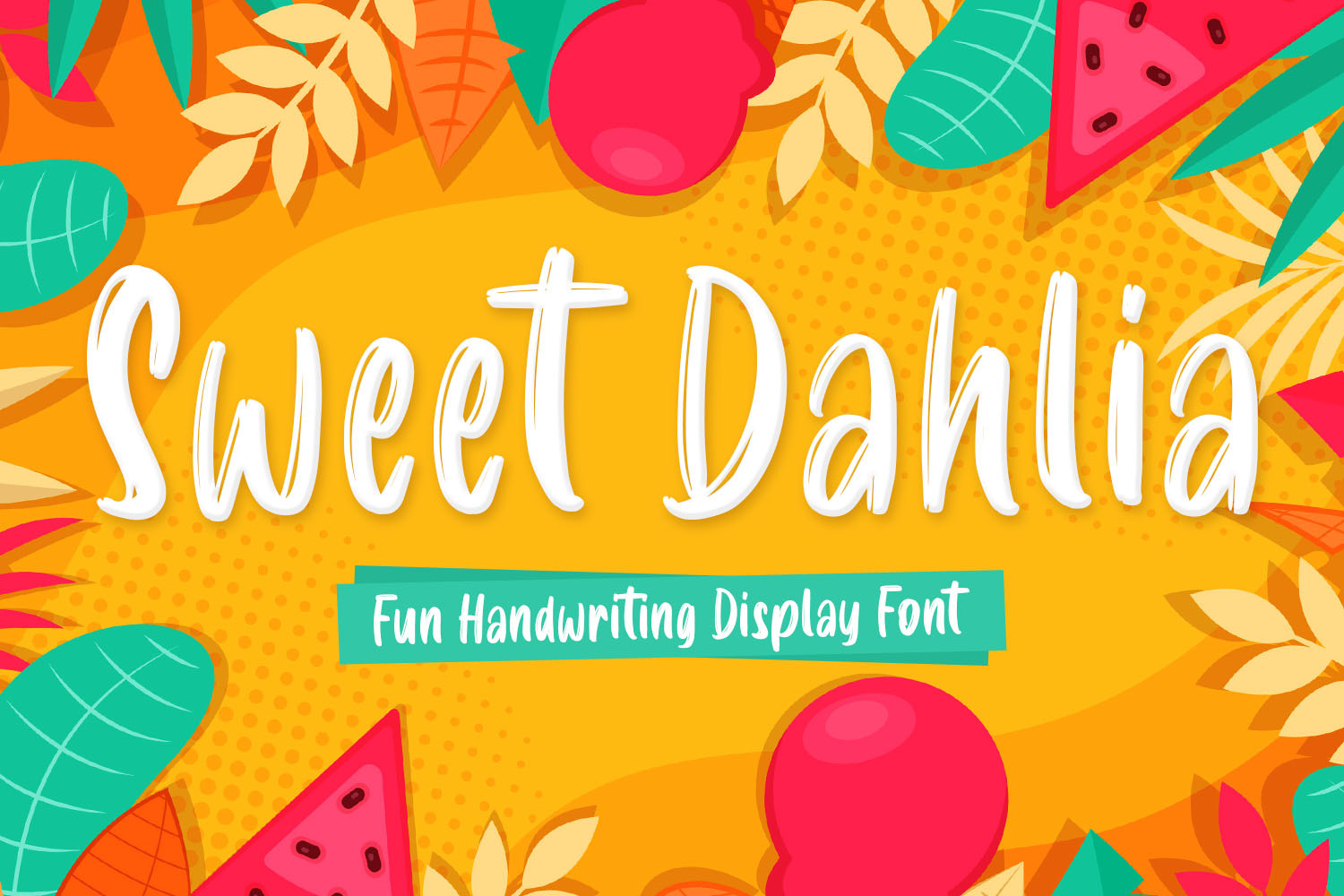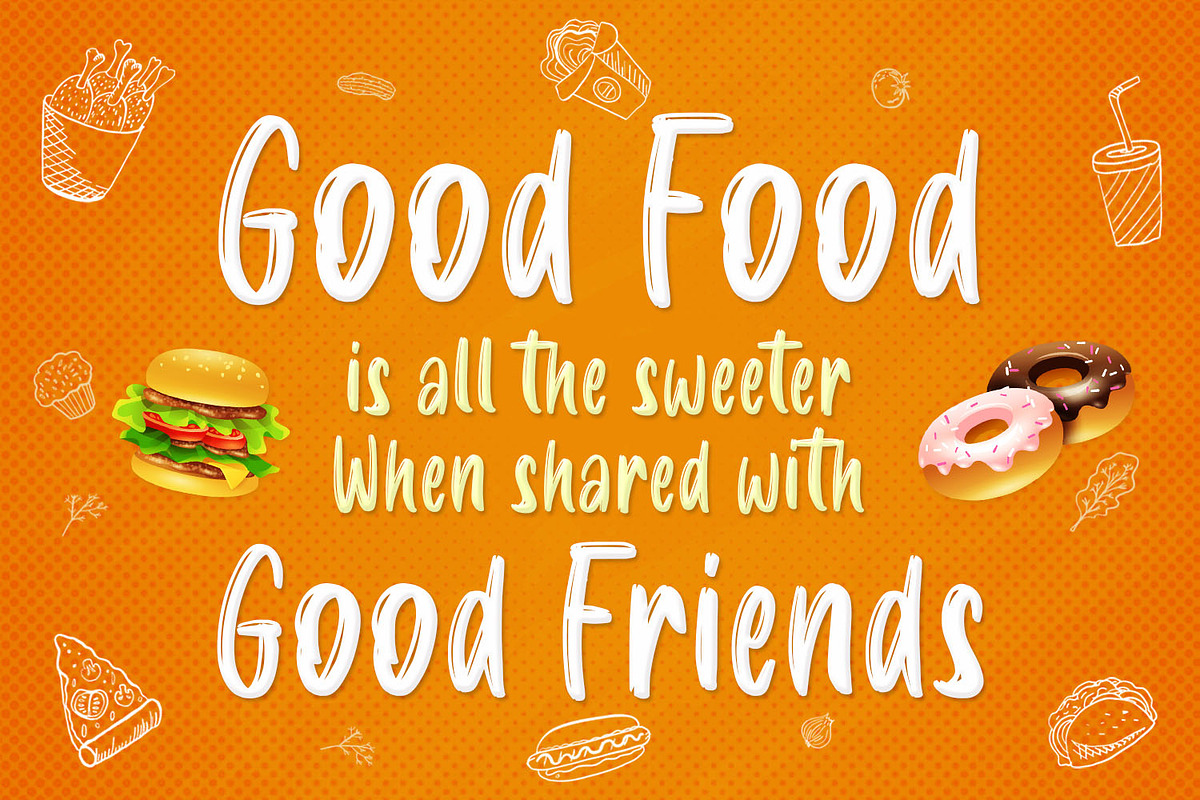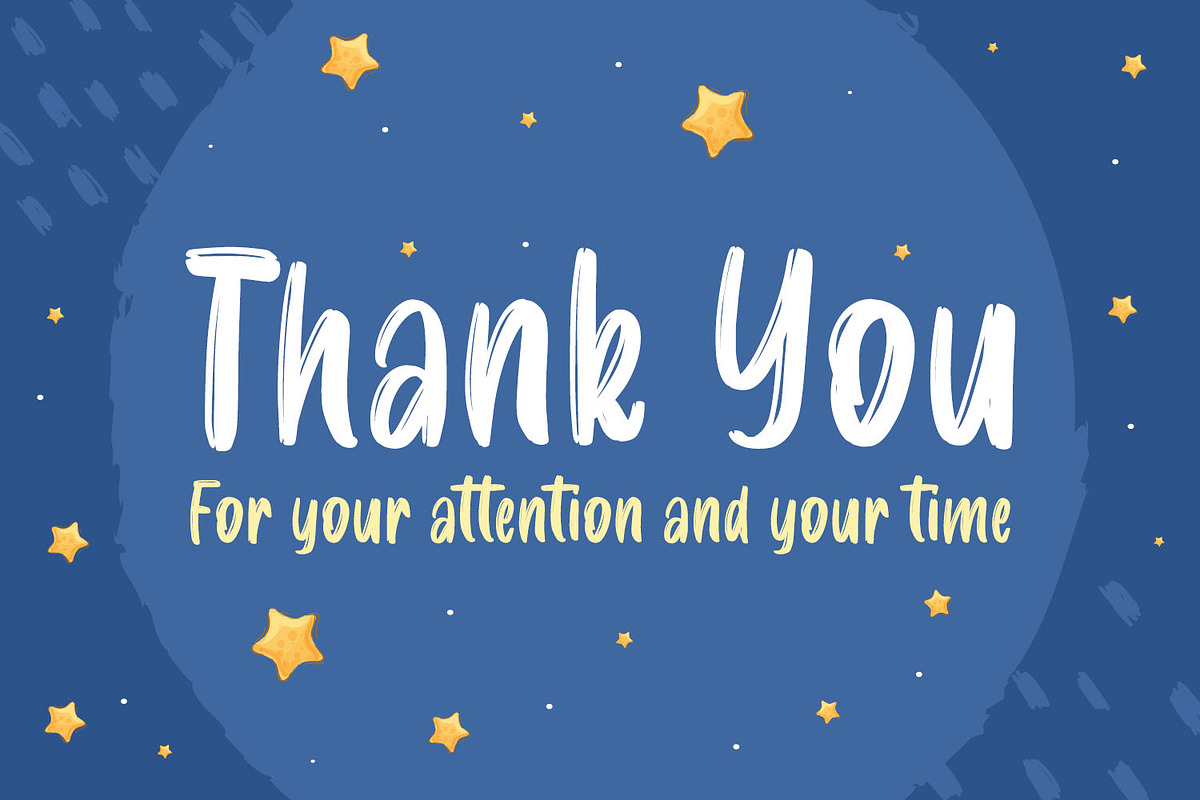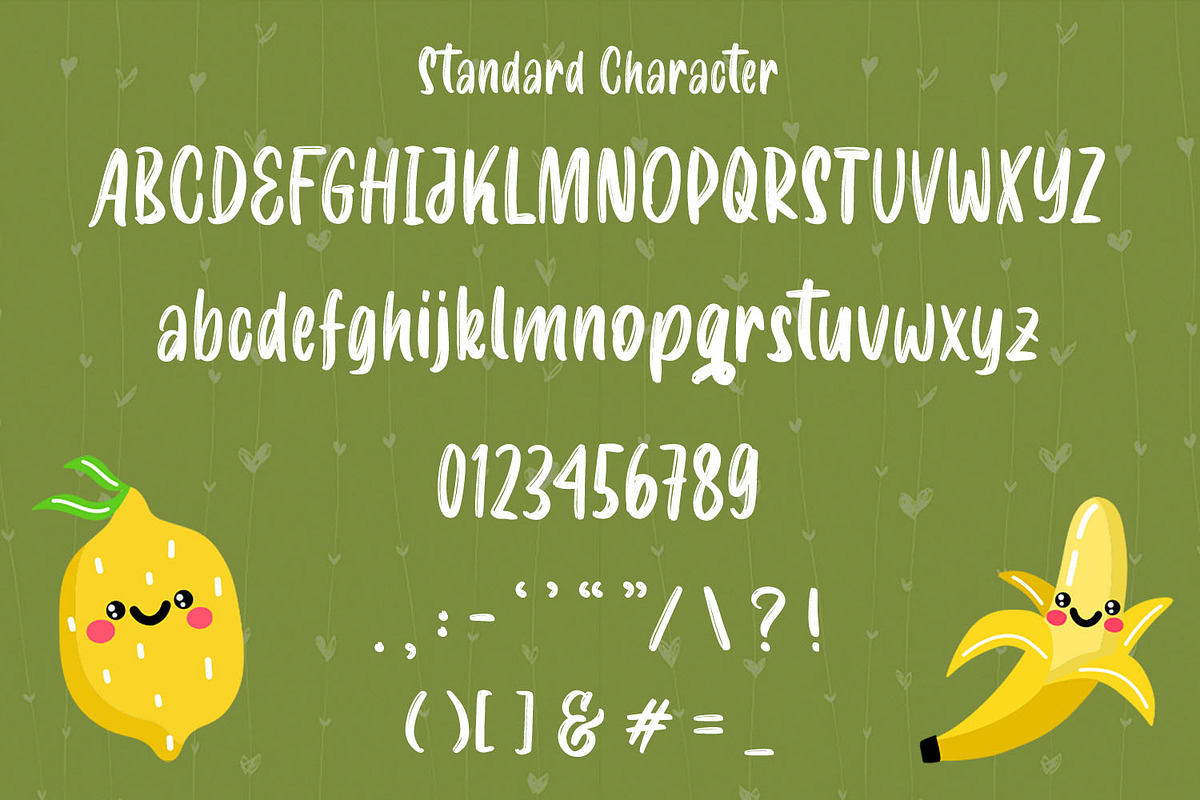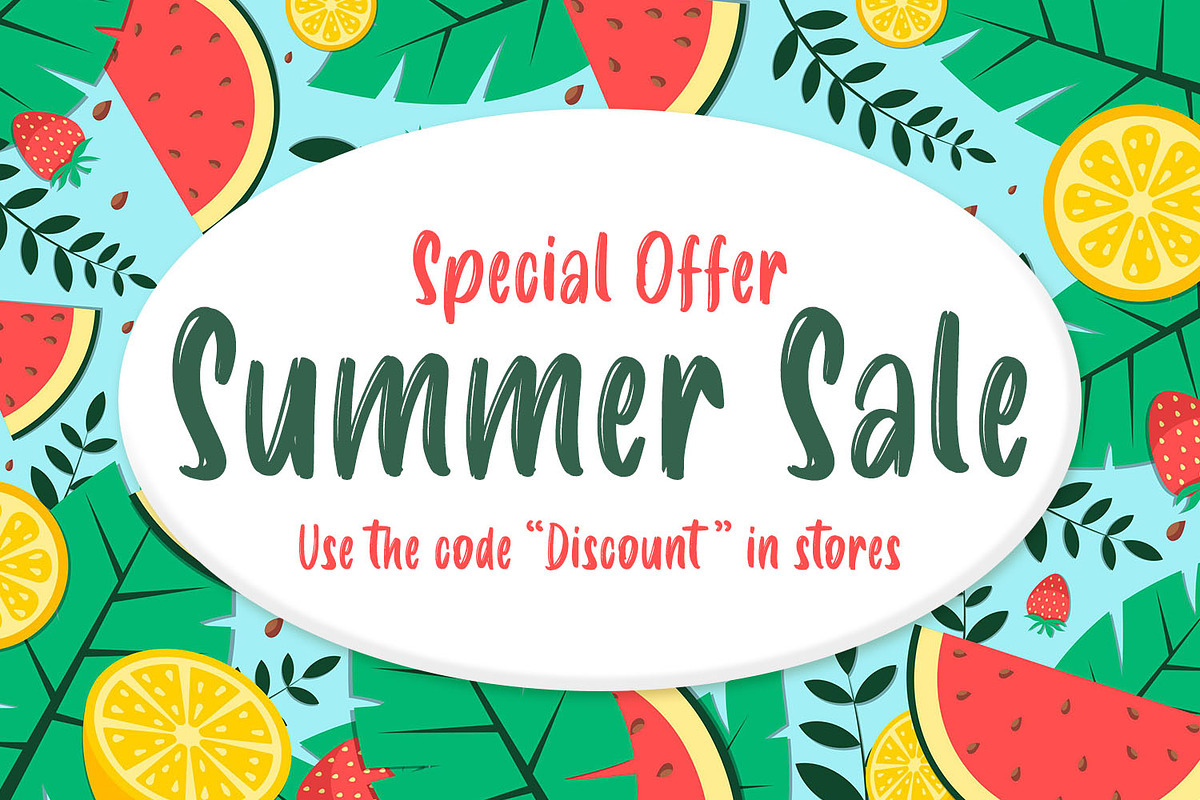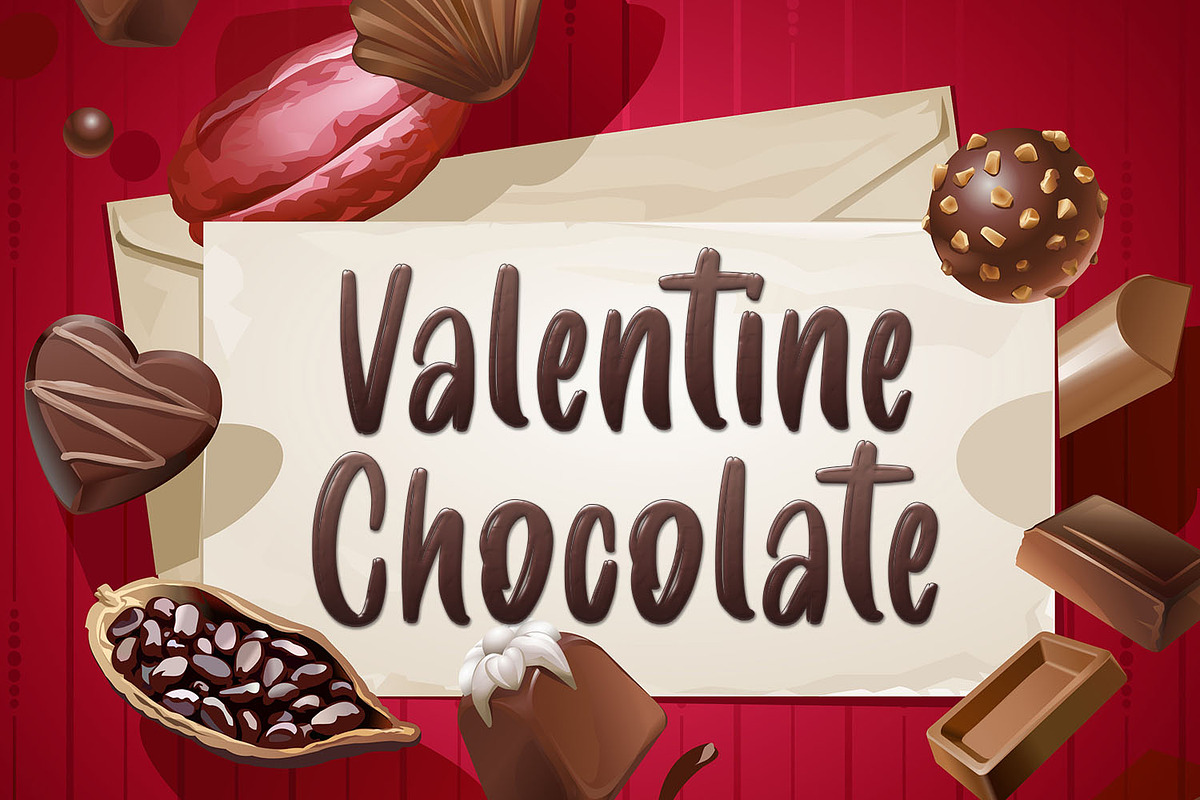
Sweet Dahlia Brush Handwriting Font
Sweet Dahlia is a playful display font, created with the help of a brush pen. Beautiful and versatile, this font will become your top choice for a wide spectrum of creative ideas in no time!
This font is perfect for many different projects such as logos & branding, invitation, stationery, wedding designs, social media posts, advertisements, product packaging, product designs, label, photography, watermark, special events, or anything.